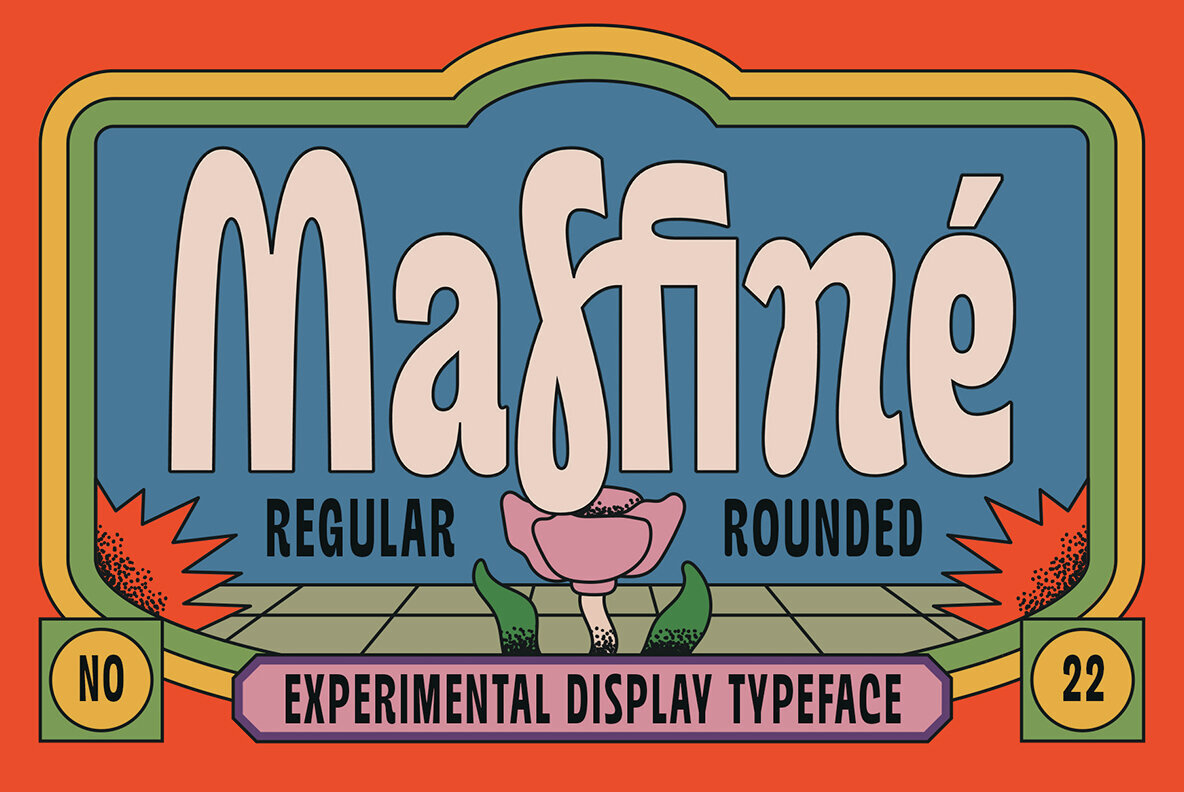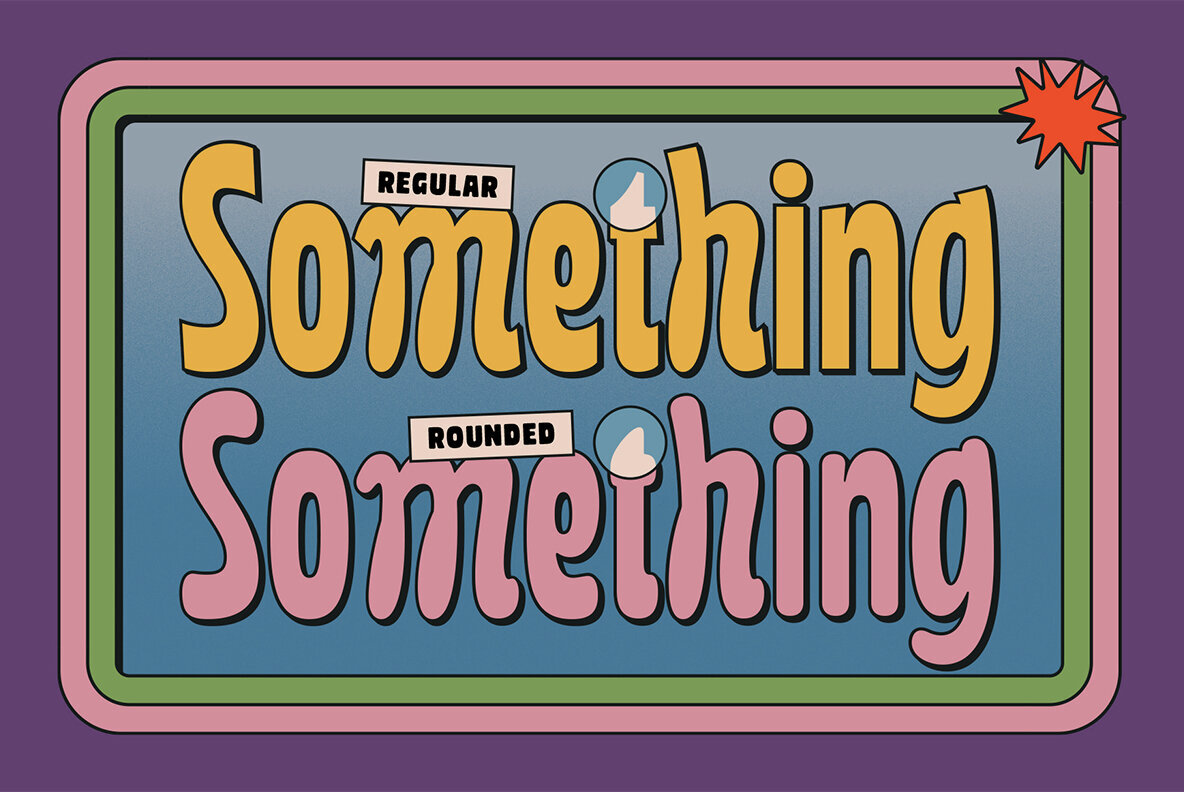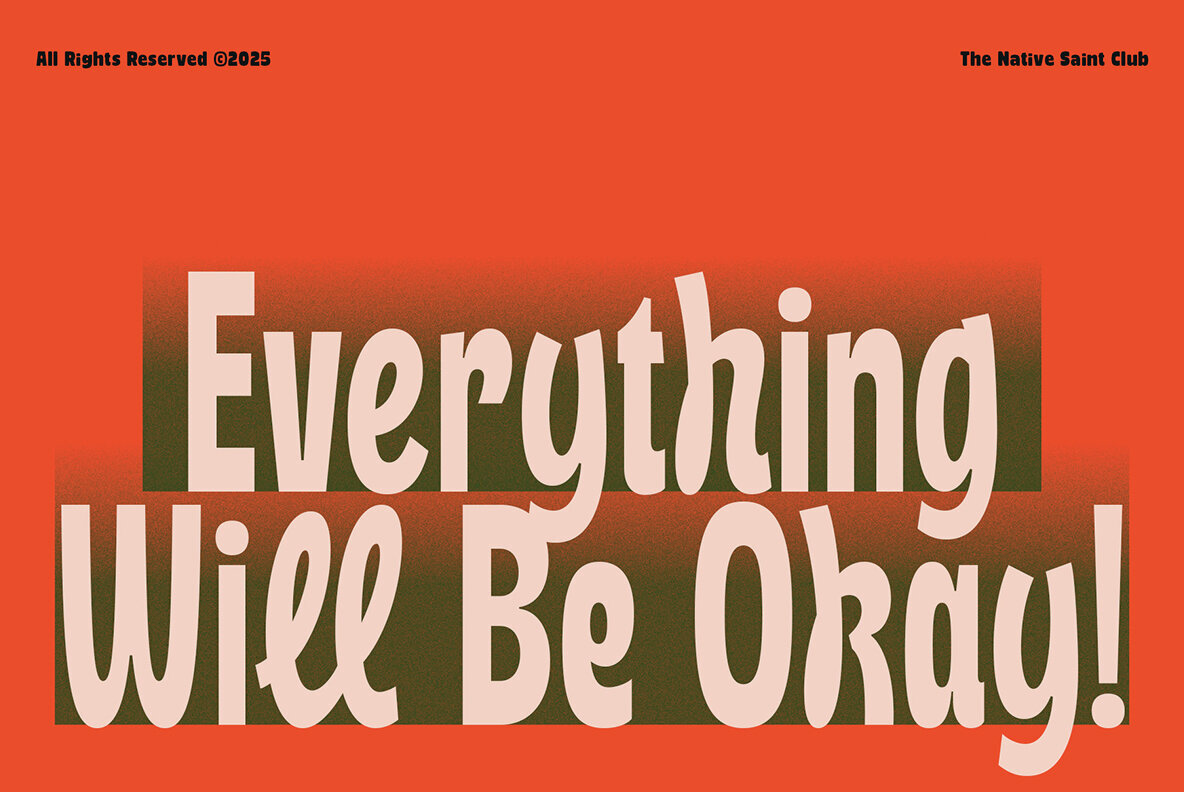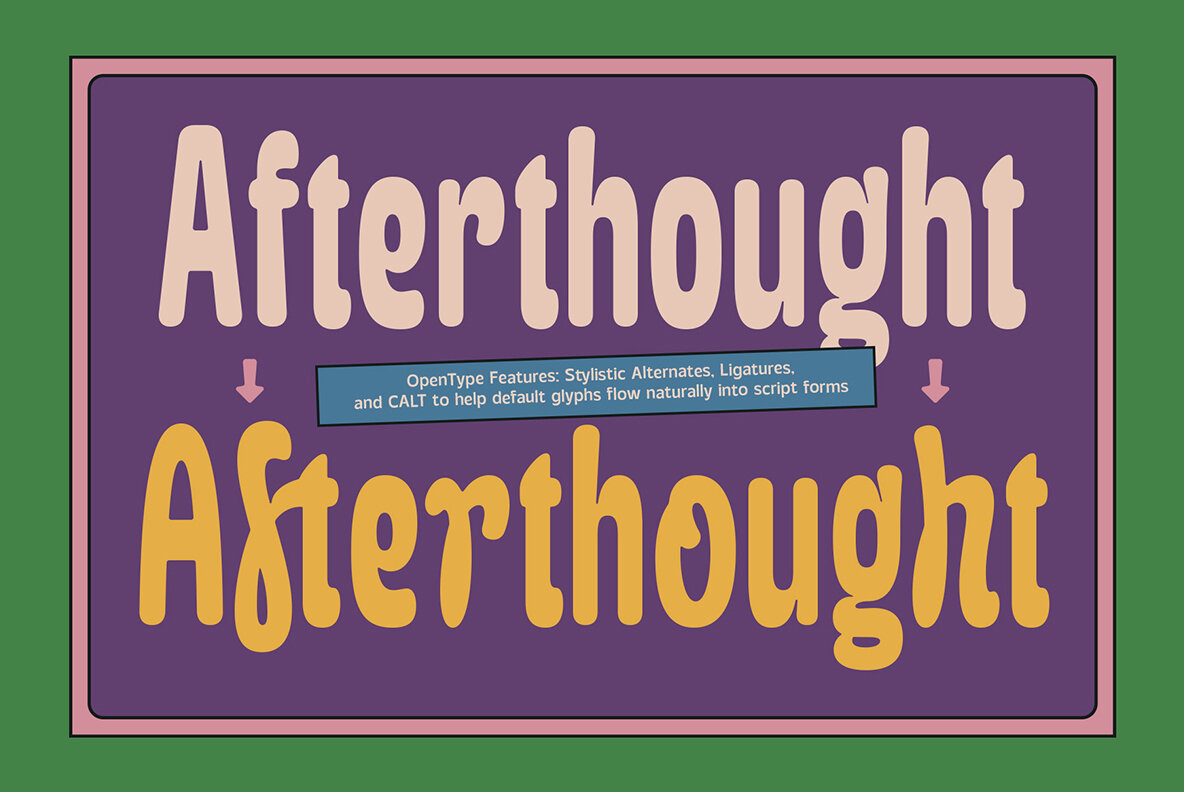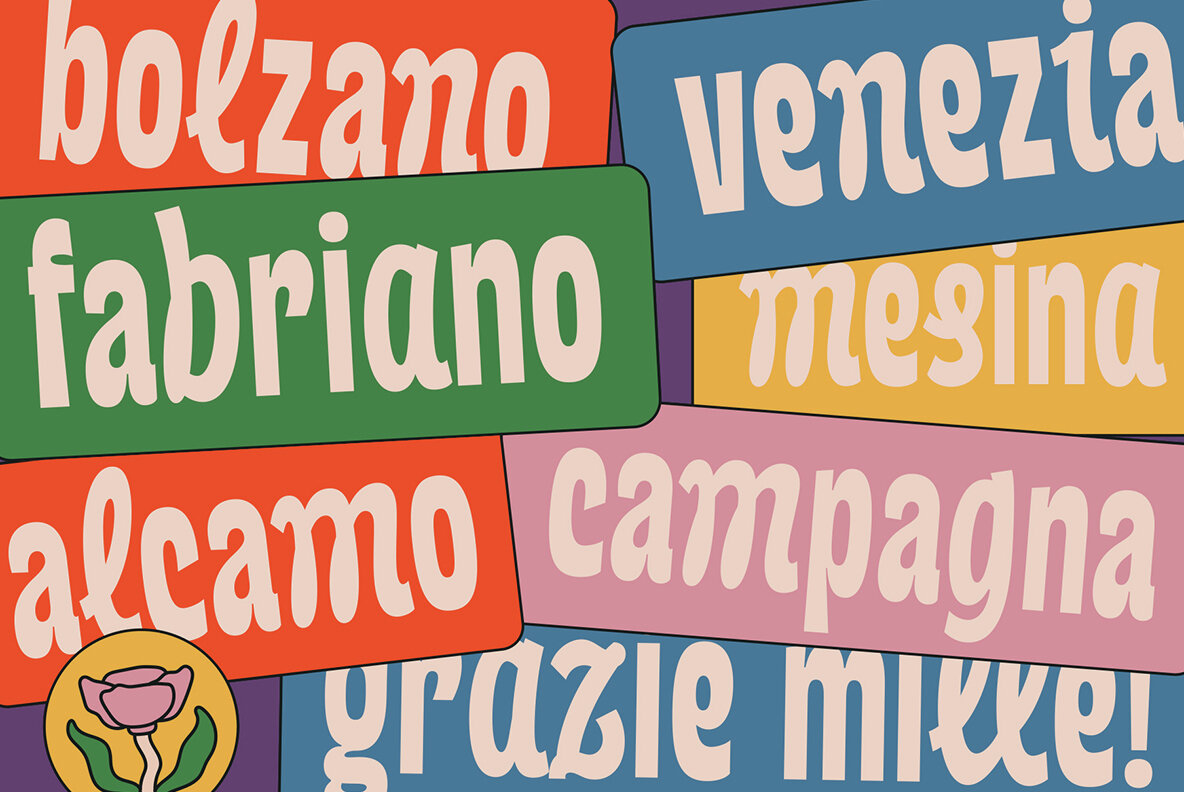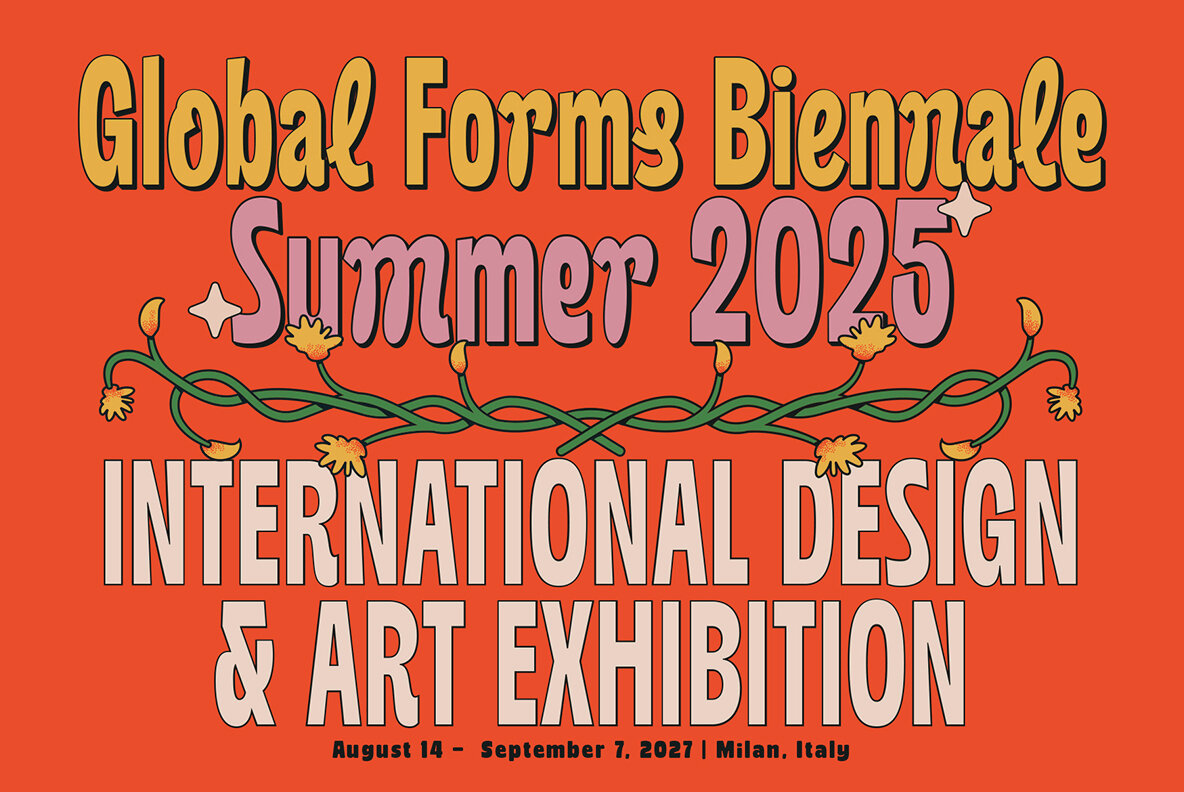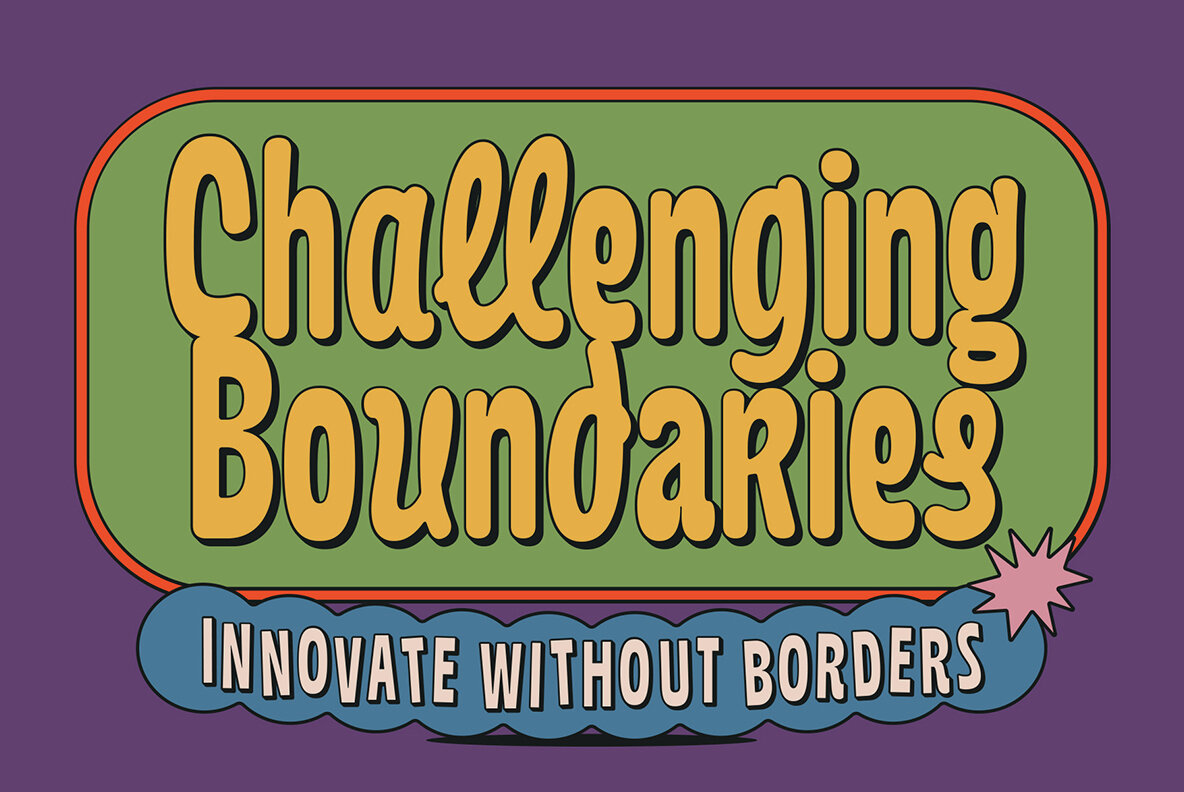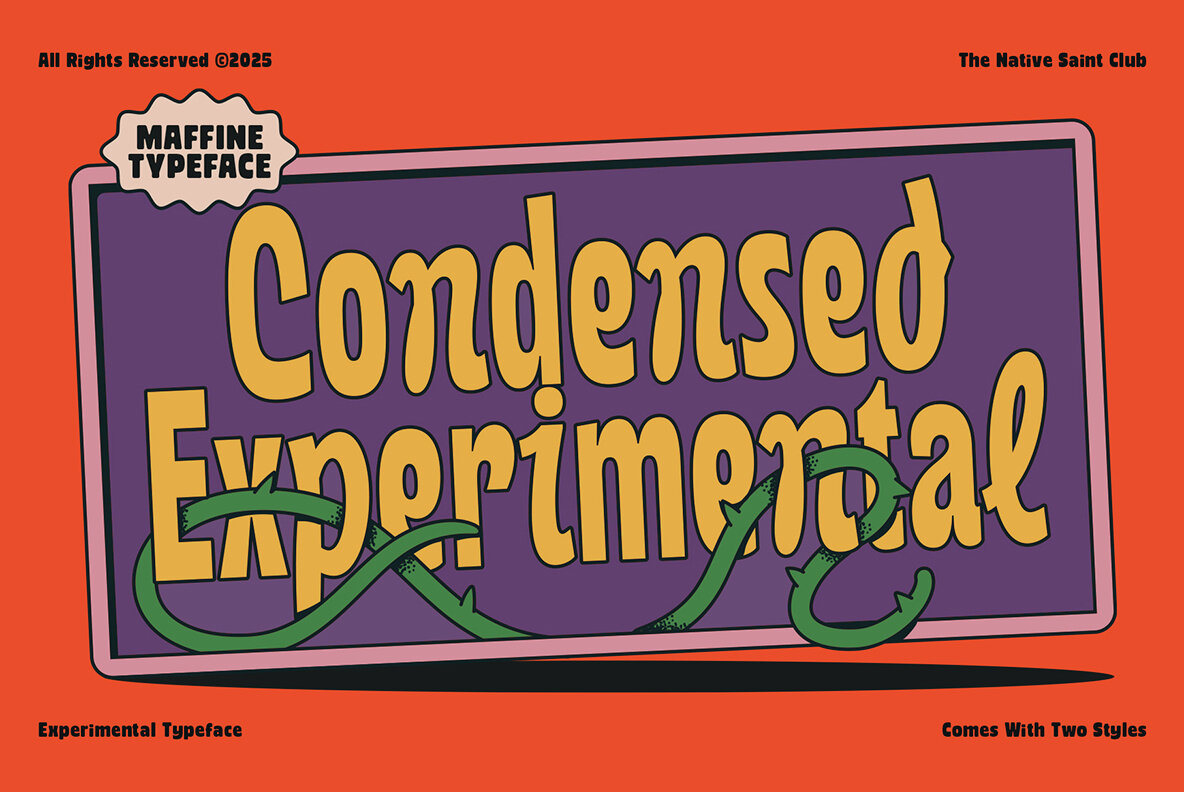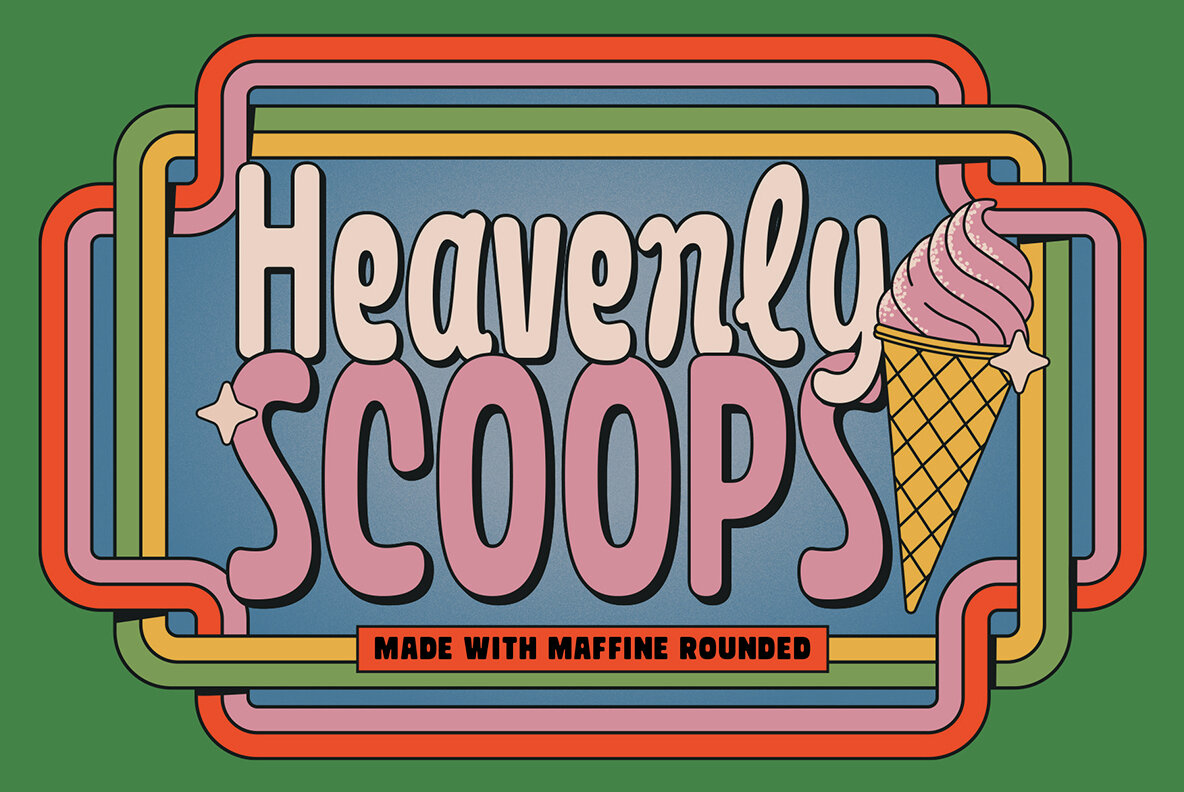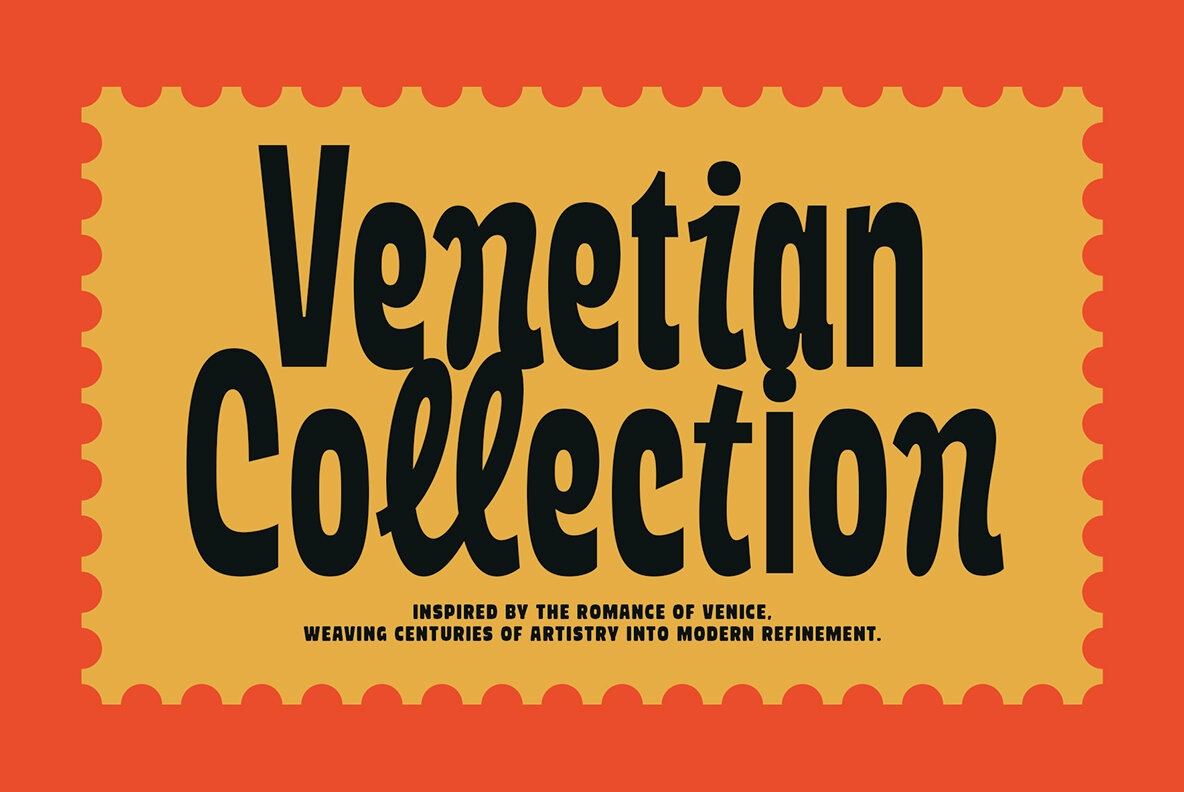
TNSC Maffiné Font
Maffine Regular
Maffine Rounded
Maffiné offers a unique take on display typography, capturing the eye with its experimental and whimsical flair. This typeface embodies a blend of quirky organic curves and robust structure, available in both regular and rounded styles. Designed to add character to your text, it's ideal for headlines, posters, branding, and packaging.Maffiné: A Playful Display Typeface